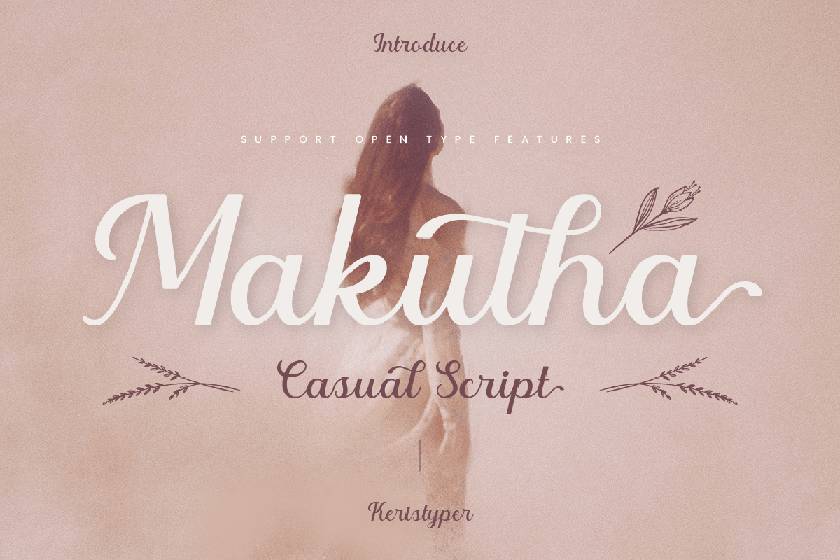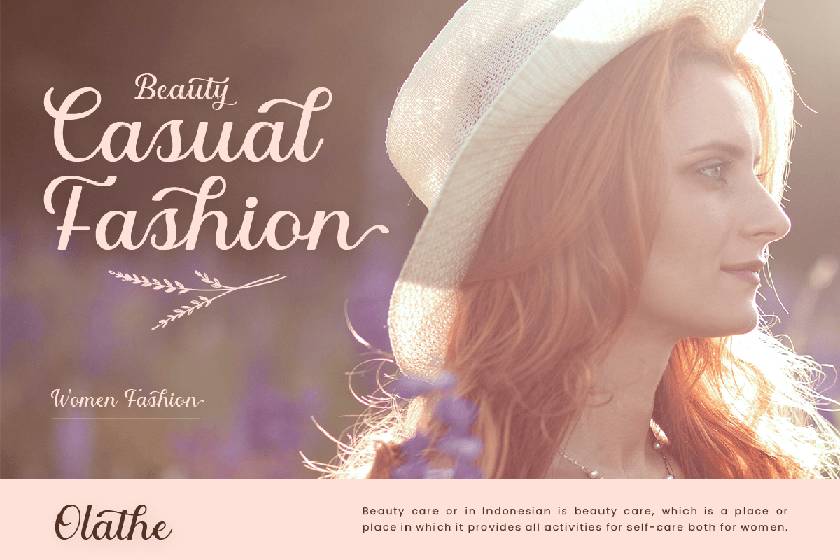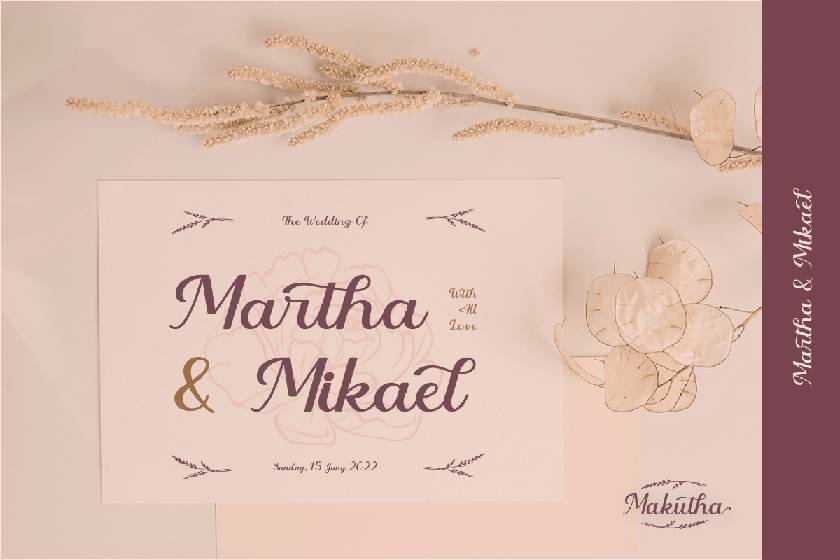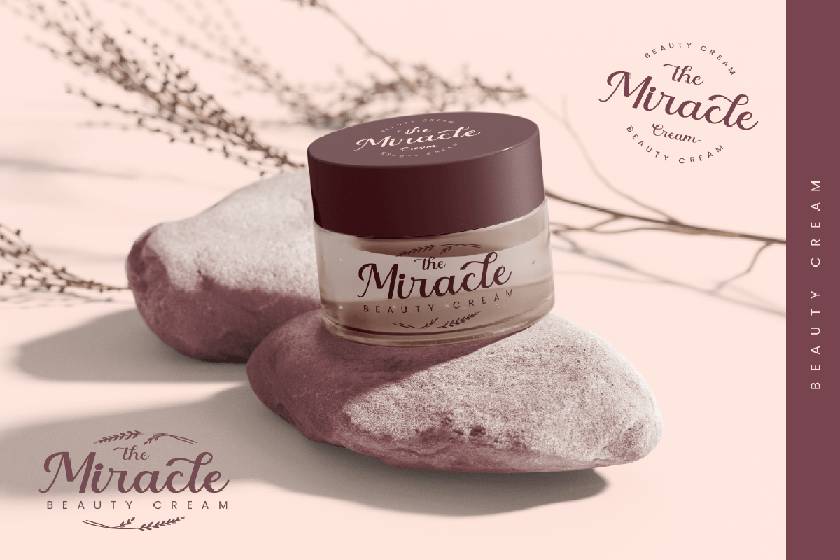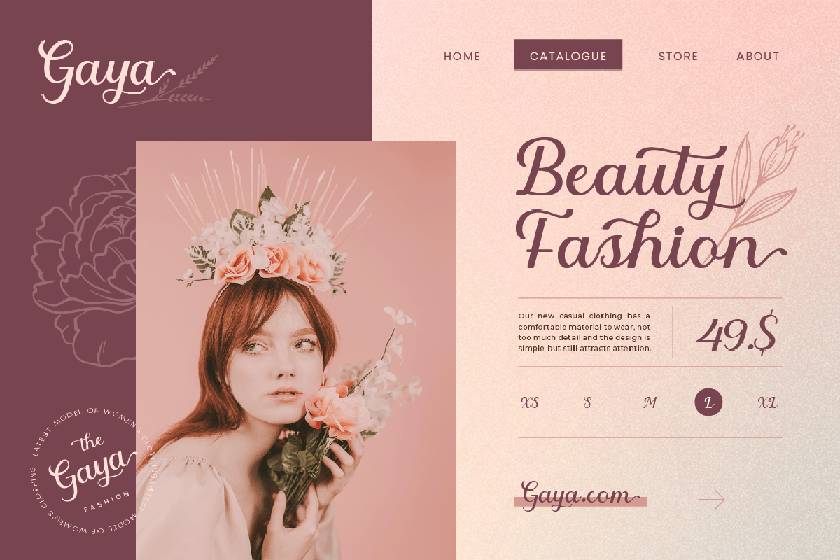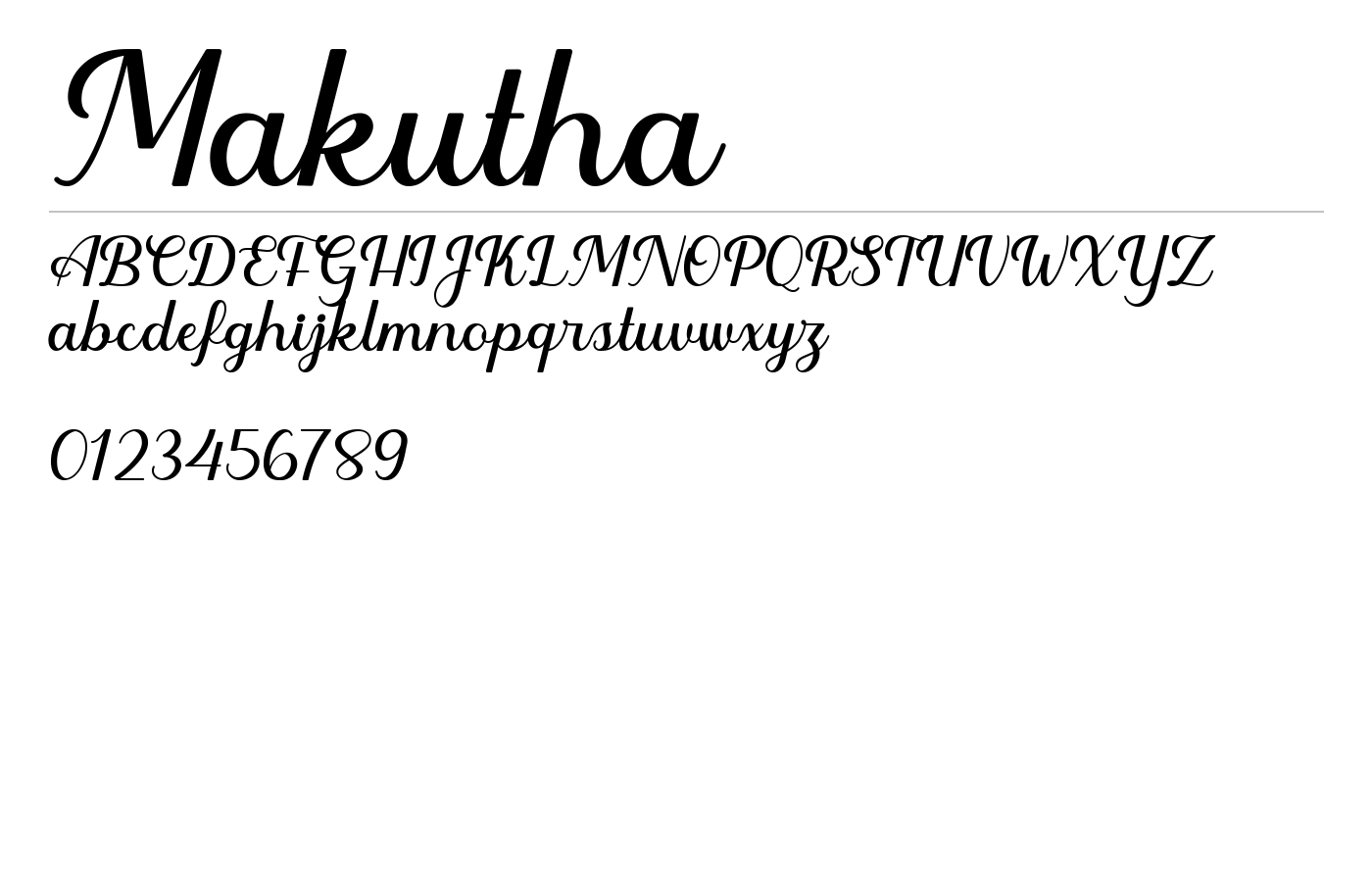
Makutha is an elegant script font with a graceful, flowing style that blends classic calligraphy with a modern touch. Its slender strokes and moderate contrast create a refined yet approachable feel, making it ideal for branding, invitations, and editorial headlines where a touch of sophistication is desired. This font works beautifully in contexts that require a stylish, personal, and classy impression.
Makutha Font
About Makutha Font